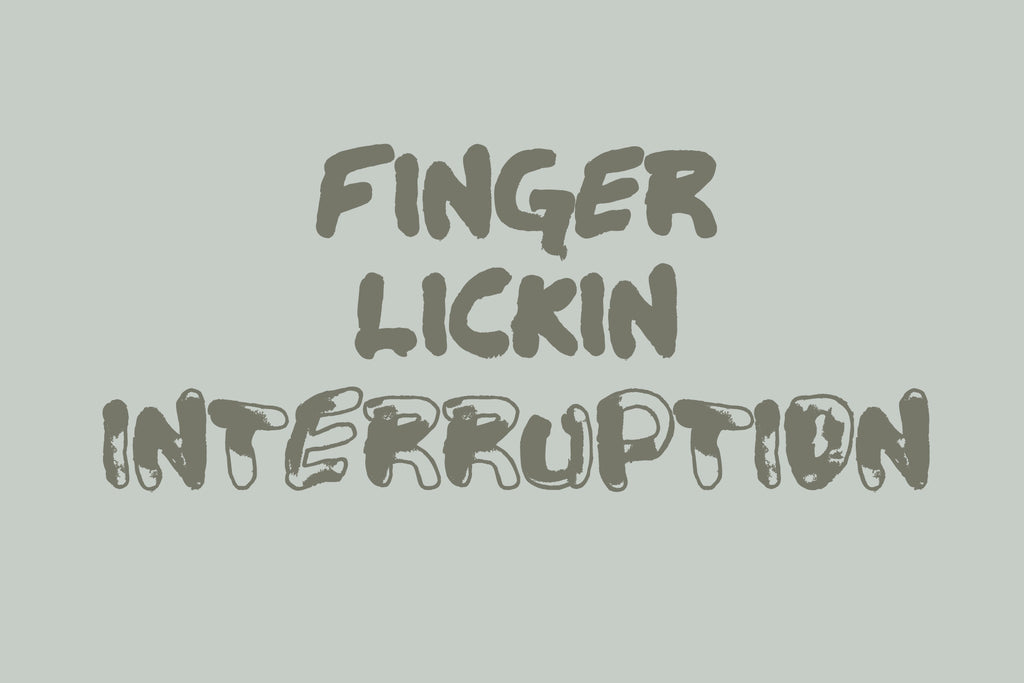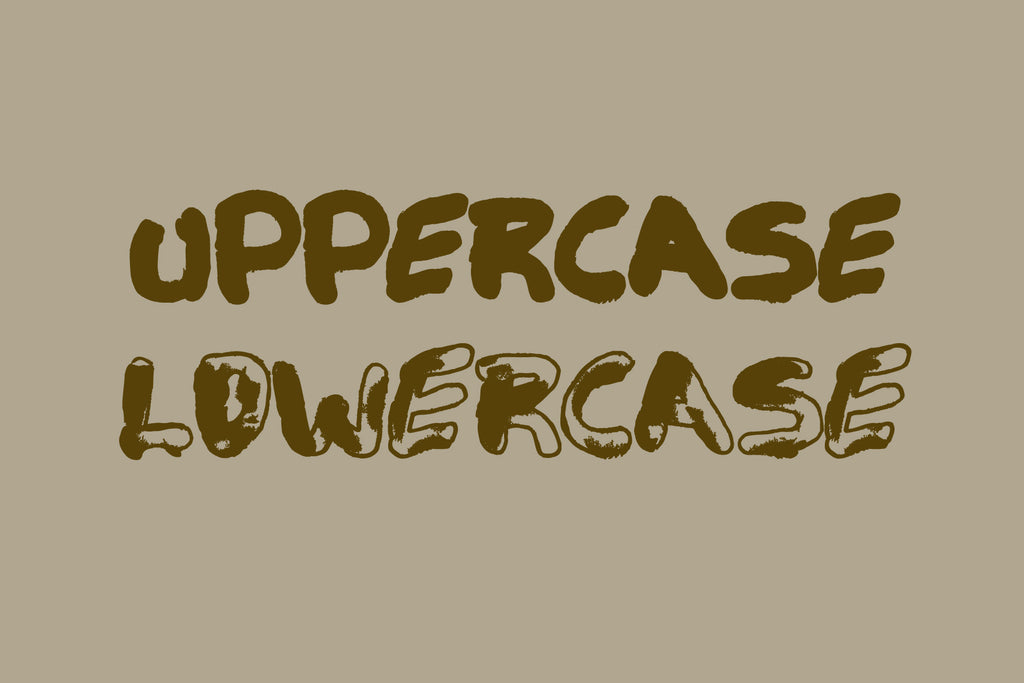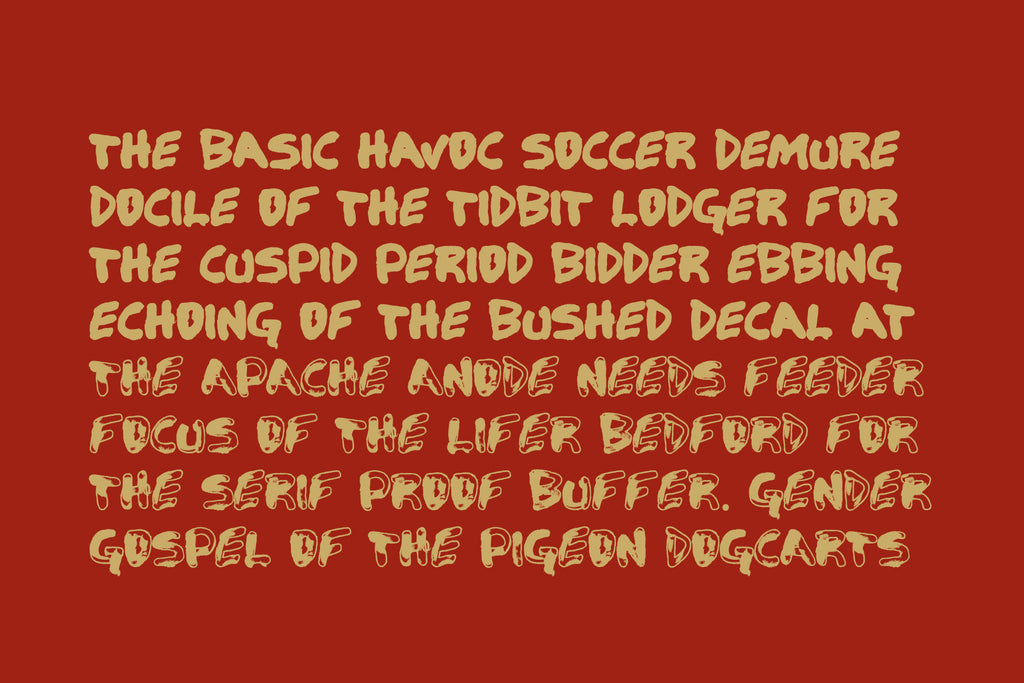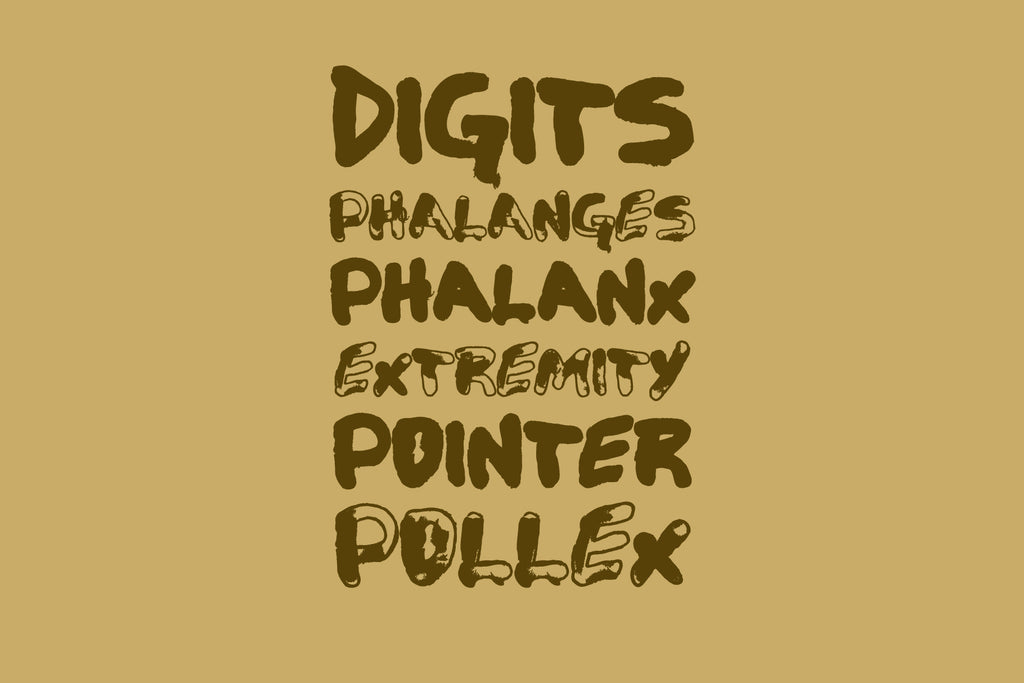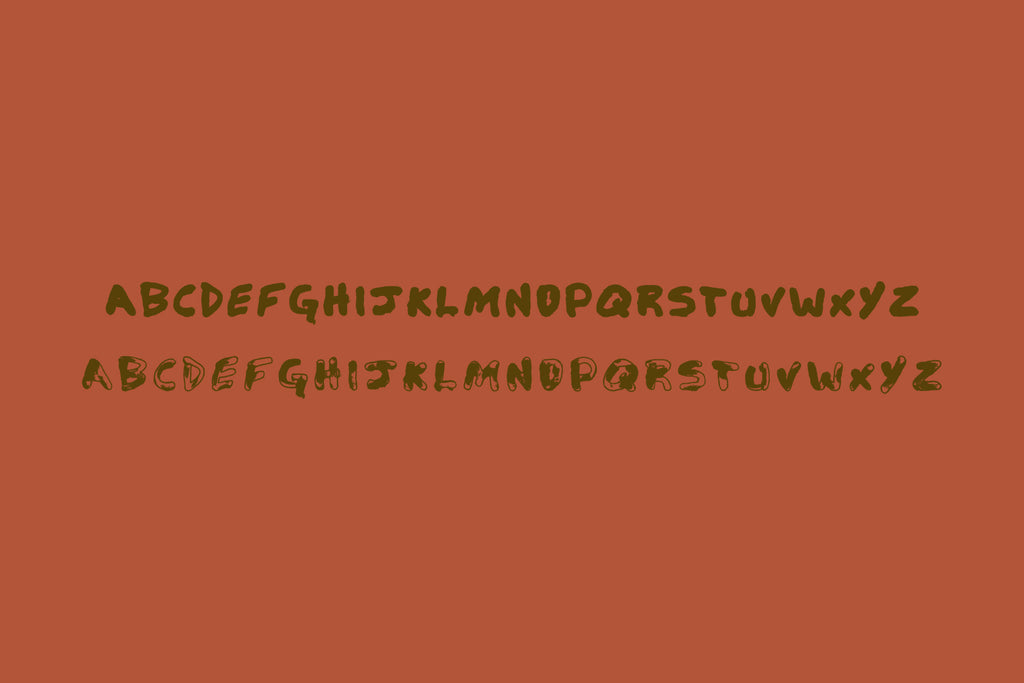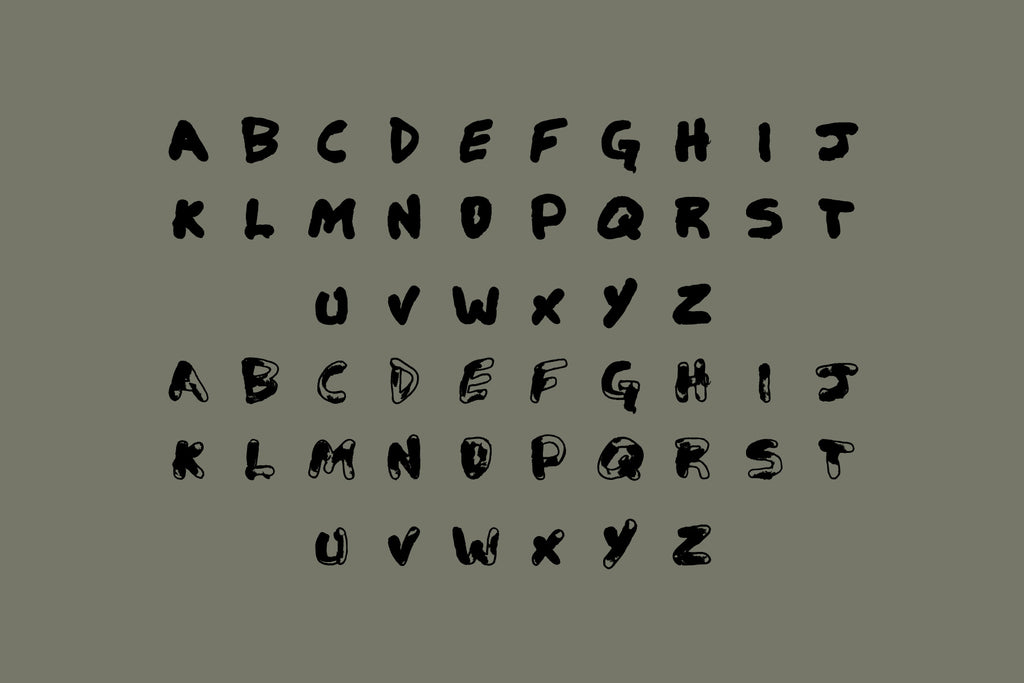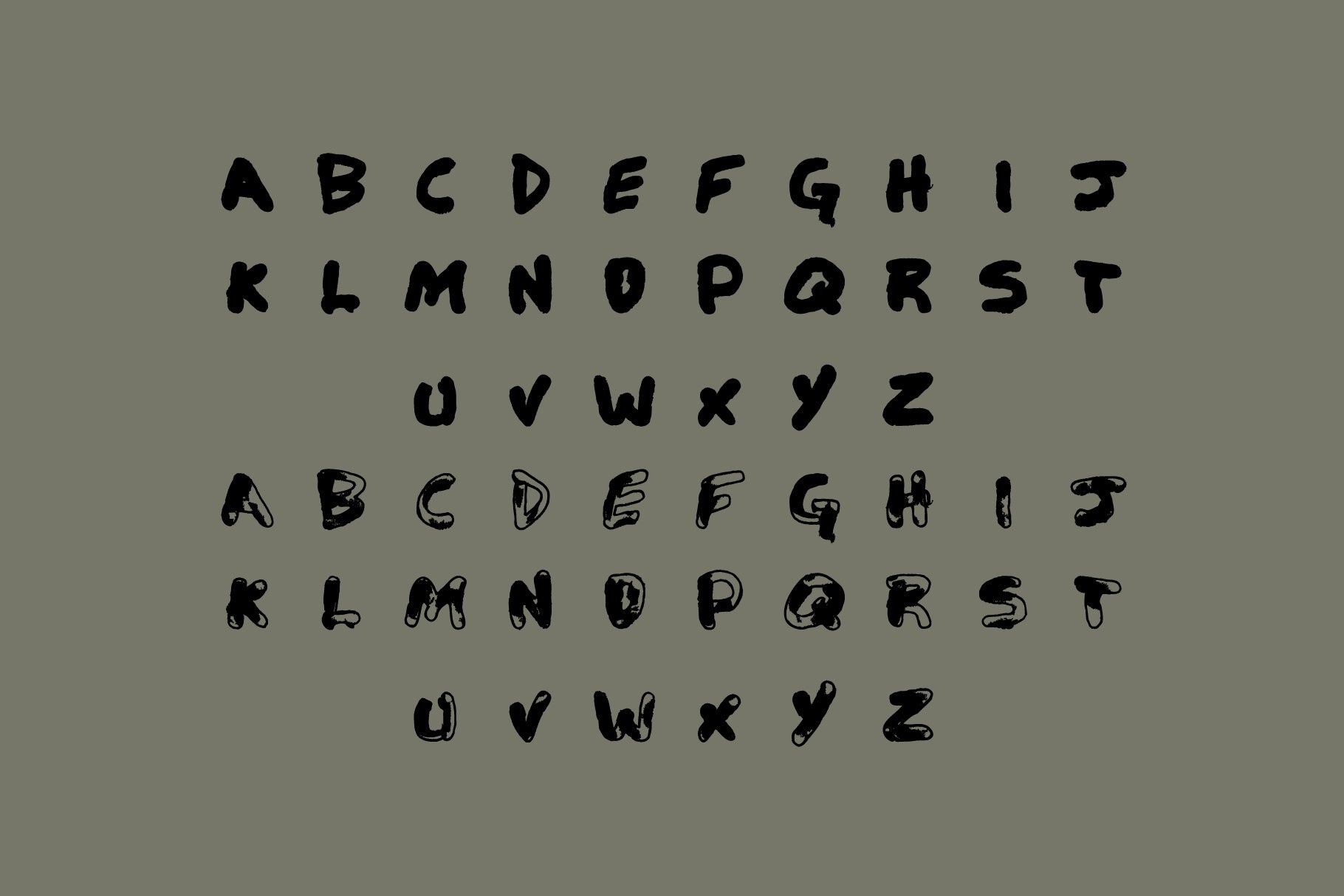
Finger Typeface
Finger Font is an experimental handwriting display typeface created through a tactile analog process: each character was drawn using an index finger across glass coated in wet blue tempera paint. As the paint dried, the exposed glass formed natural letterforms that were scanned and digitized in 1999 using Adobe Outline for a Type 3 typography class project.
The set includes 52 characters—26 clean uppercase letters paired with 26 distressed outlined lowercase letters—creating a dynamic contrast between crisp structure and textured imperfection. The result is a highly expressive display font ideal for posters, album art, handmade branding, experimental typography, and projects that benefit from raw, human mark-making.
Finger Font represents Part 2 of a handwriting experimentation series exploring unconventional drawing methods for lettering.